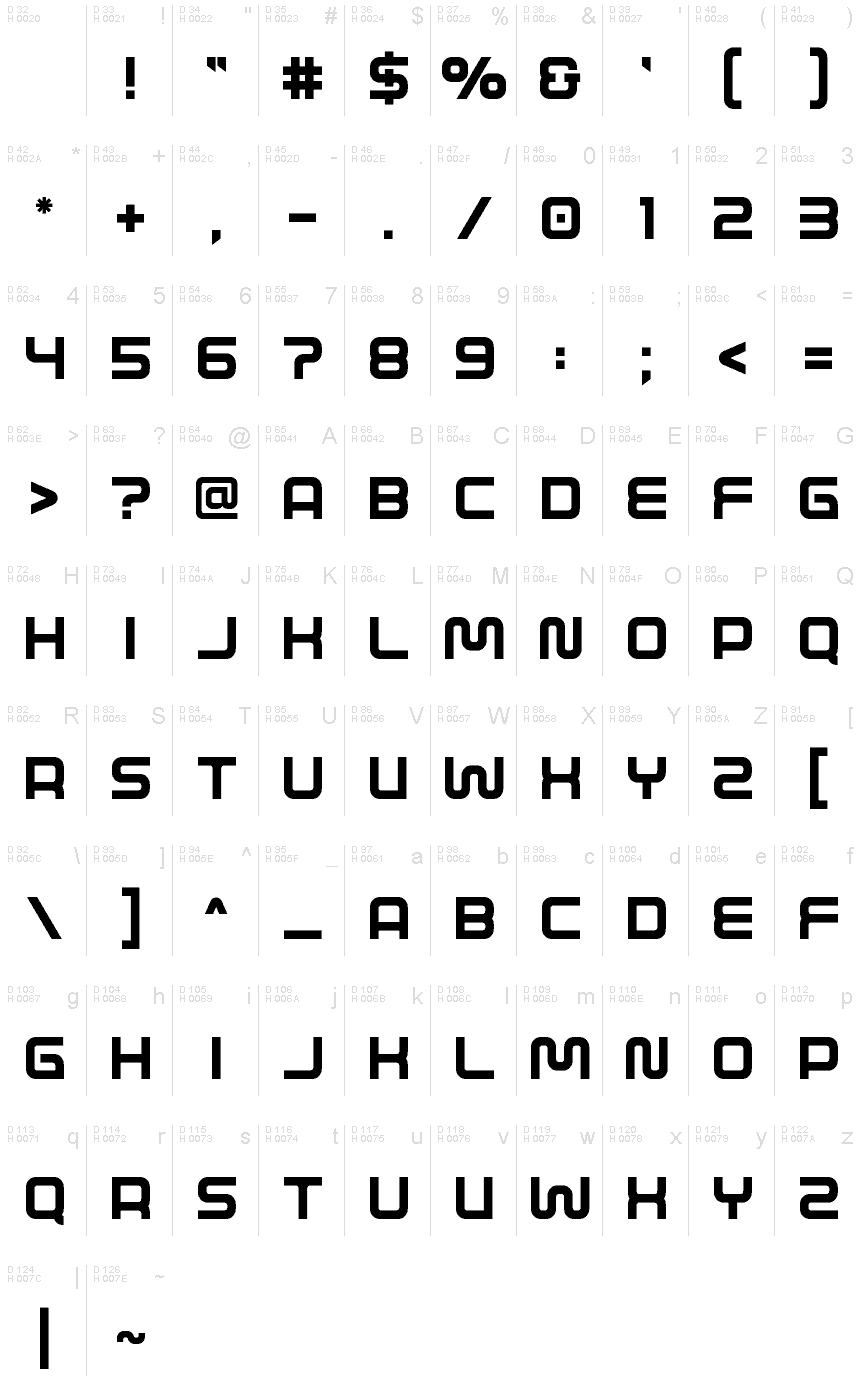
EMOTIQ
Emotiq font by Enxyclo Studio is a futuristic typeface that captures attention at first sight. Irregular letter shapes in this expanded font give the characters both a modern and geometric look, making Emotiq suitable for various display applications and uses. The font reflects its name with thick weights, curved, and unusual lines.
Various uses of this free display font include packaging designs in several industries like fashion, cosmetics, food & beverage and more. In addition to labels of all sorts, it can be included in magazine covers as well as book titles or premium stationery sets. Add Emotiq to your titles or focus texts on brochures, posters, and banners for an exquisite reading experience for users.